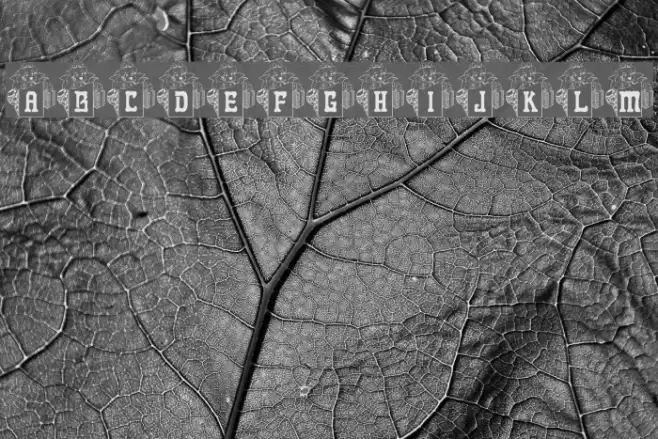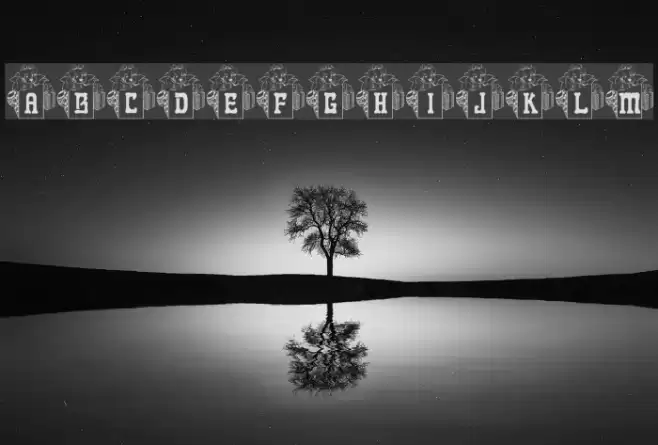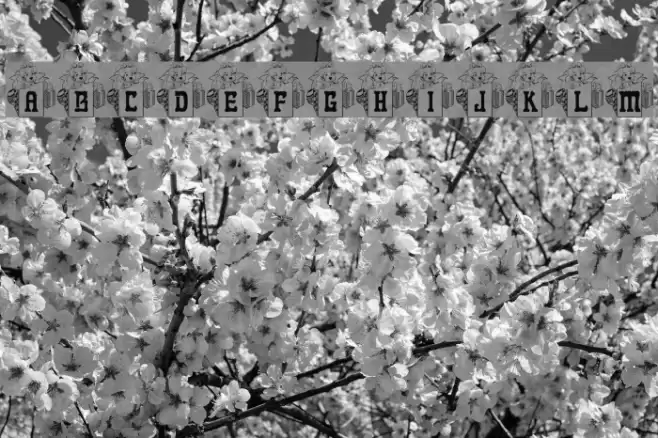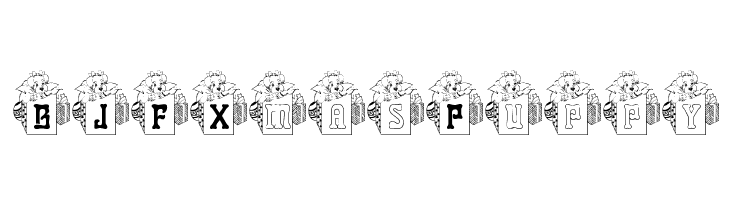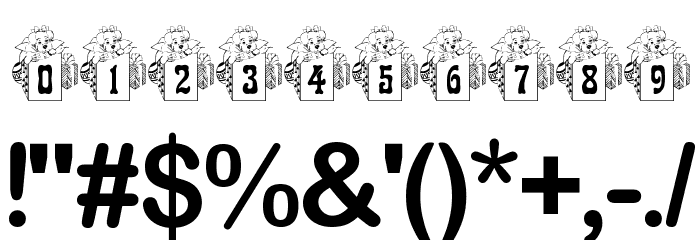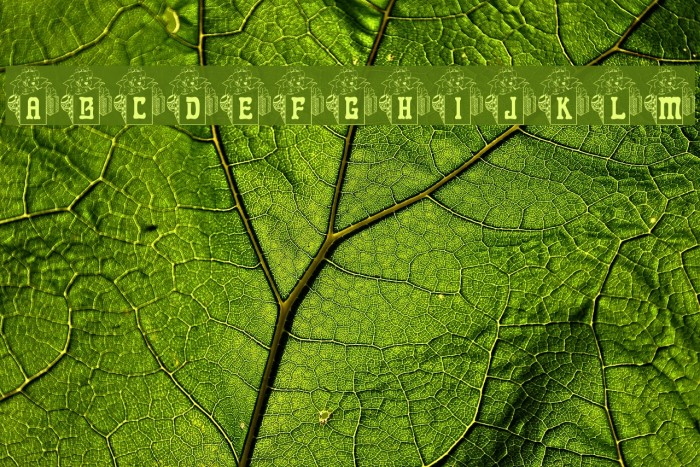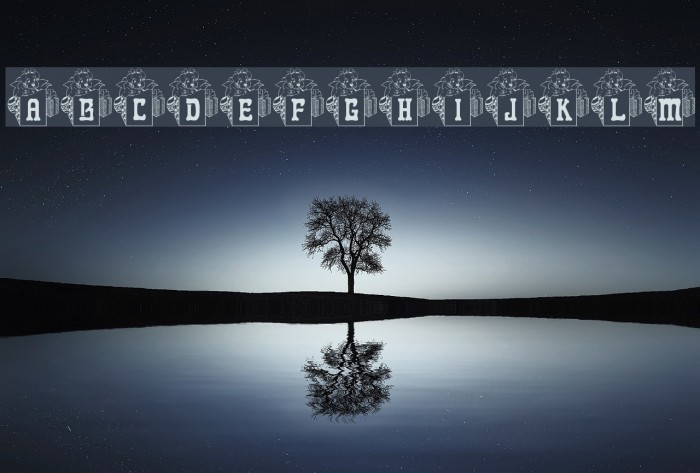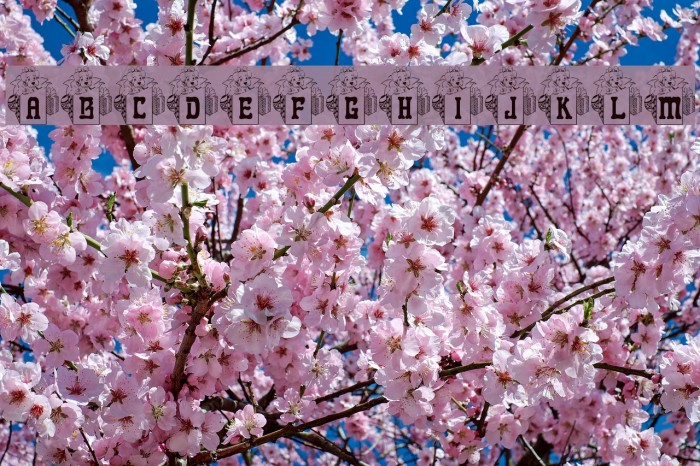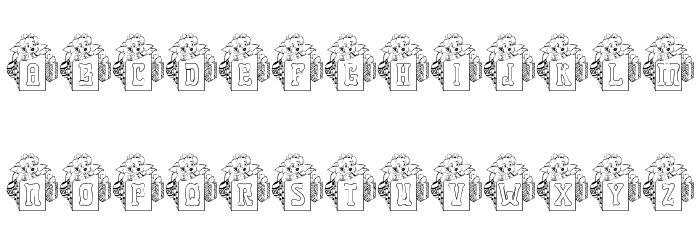
BJF Xmas Puppy Font
BJF Xmas Puppy Description
This playful and decorative font features each character enclosed in a block with a charming puppy illustration on top. The letters are bold and uppercase, with a whimsical style that adds a festive and cheerful touch. The font includes both uppercase and lowercase letters, numbers, and a selection of special characters. The design is perfect for holiday-themed projects, evoking a sense of joy and fun. The characters are well-defined, with a consistent style that maintains readability while adding a unique visual element.
A playful decorative font with puppy illustrations, perfect for festive projects from Uncategorized fonts.
- Proposed Projects: Ideal for holiday cards, children's book covers, playful invitations, and festive banners.